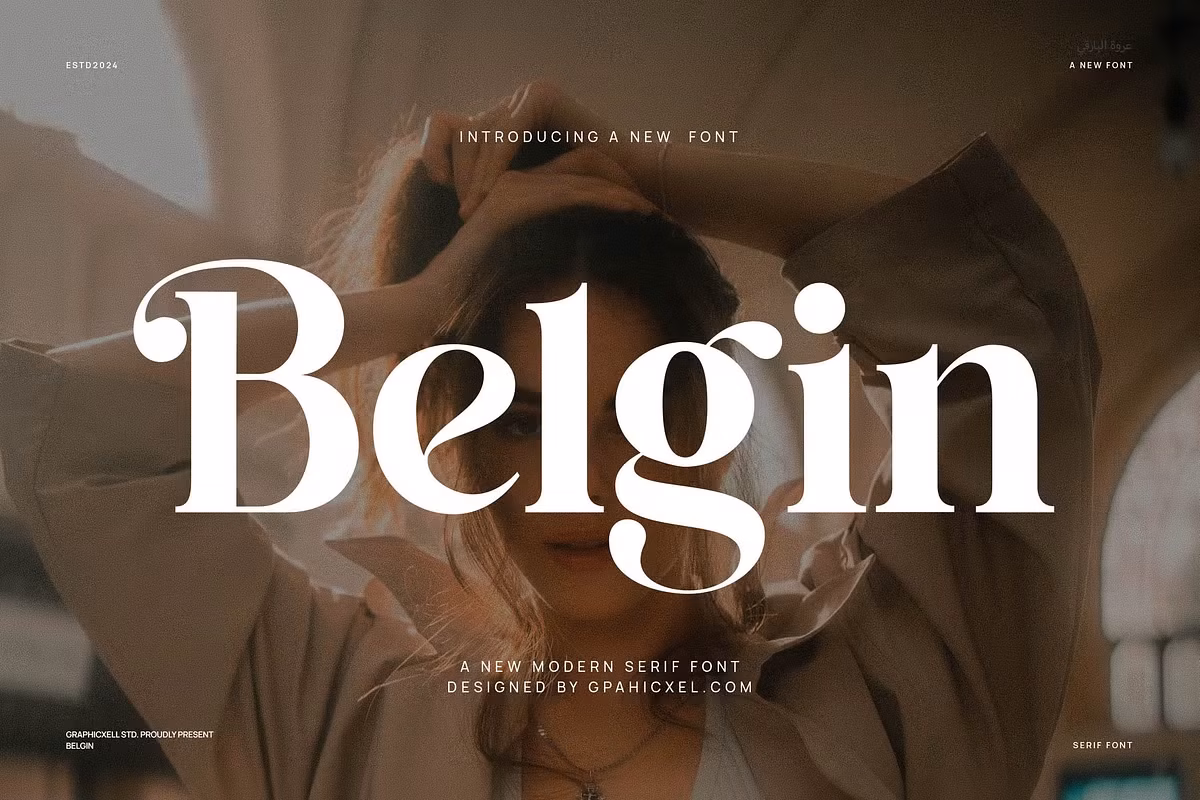
Belgin Elegant Ligature Serif Font Free Download
Belgin Elegant Ligature Serif Font Free Download is a refined and luxurious typeface that combines traditional serif elements with modern ligature designs. Featuring delicate curves, stylish ligatures, and sophisticated details, Belgin is perfect for upscale branding, wedding invitations, editorial layouts, high-end product packaging, and other elegant design projects.
Belgin Elegant Ligature Serif Font Free Download brings a touch of grace and sophistication to any typography. Whether you’re crafting a logo, designing an elegant magazine spread, or creating premium promotional materials, this font adds a timeless, upscale aesthetic to your work. Download it today and elevate your design projects with the graceful elegance of Belgin.